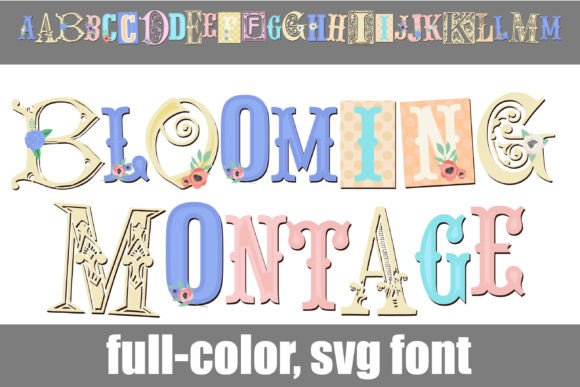
The Blooming Montage Font: A Game-Changer for Designers and Crafters
I’ll never forget the moment I stumbled upon the Blooming Montage Font. I was working on a project for a client who wanted a custom logo with a floral twist. I had spent hours scouring the internet for the perfect font, but nothing seemed quite right. That was until I discovered Blooming Montage – a stunning full-color font that features beautiful florals on a mixed font. It was love at first sight! 💕
- ✅ The unique and colorful design of the font, which adds a touch of personality to any project
- ✅ The alt case feature with additional colors that can be accessed through the system or Silhouette’s glyph map
- ✅ The versatility of the font, which can be used for everything from simple text logos to complex illustrations
The Designer Inspiration Behind Blooming Montage
Blooming Montage was inspired by the beauty of nature and the art of floristry. The designer wanted to create a font that would capture the essence of a garden in bloom, with all its vibrant colors and delicate details. The result is a font that is both elegant and playful, perfect for adding a touch of personality to your designs.
Q: Can I edit the colors of Blooming Montage?
A: Yes, you can edit the colors of Blooming Montage using the glyph map or a design program that supports color fonts.